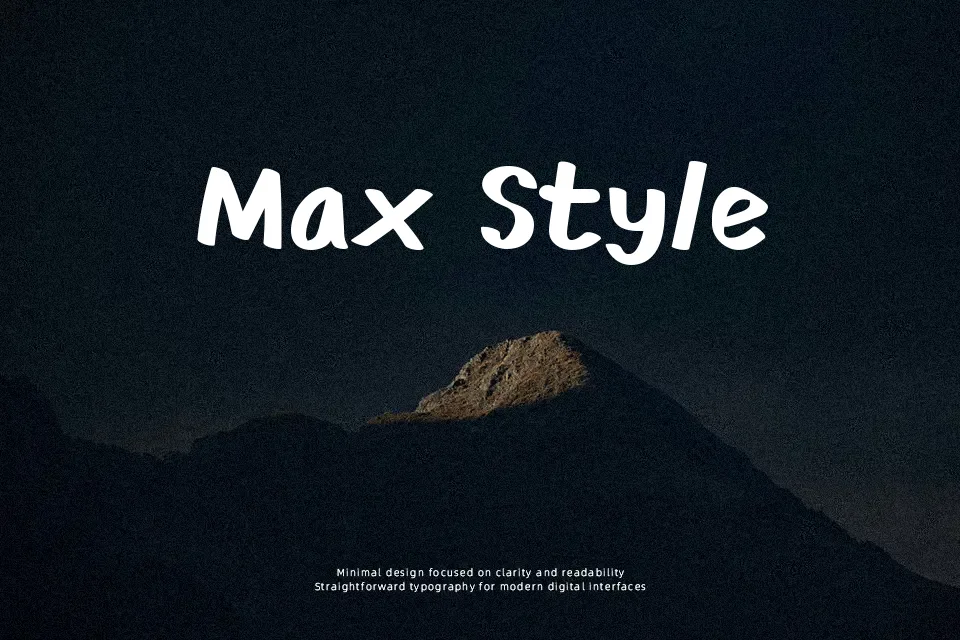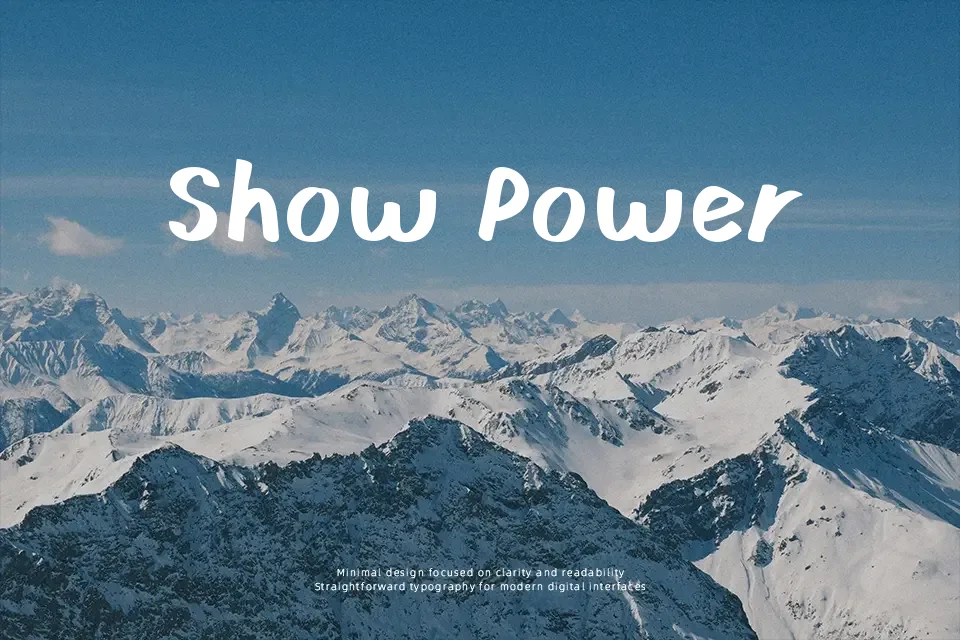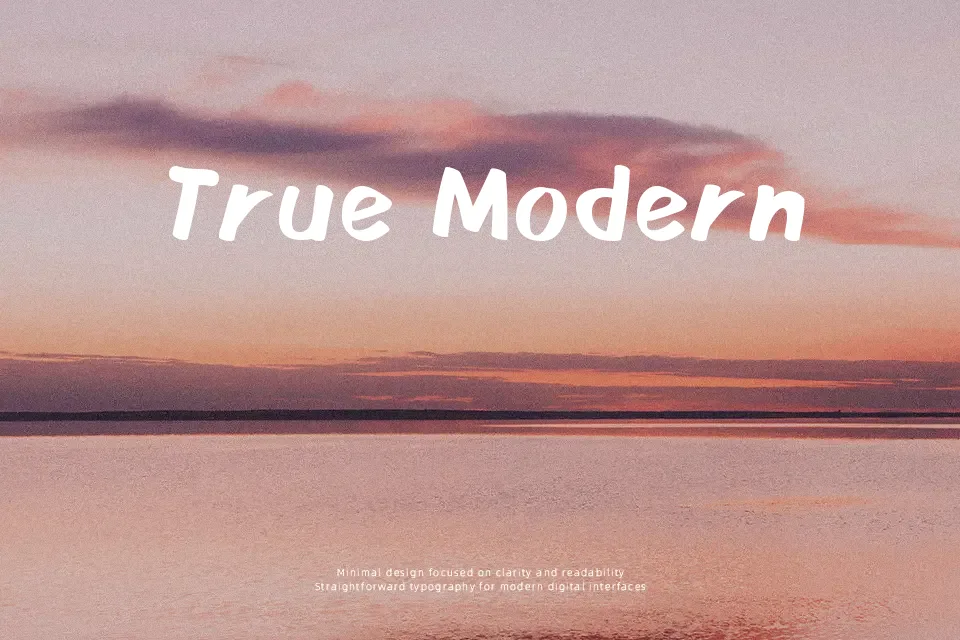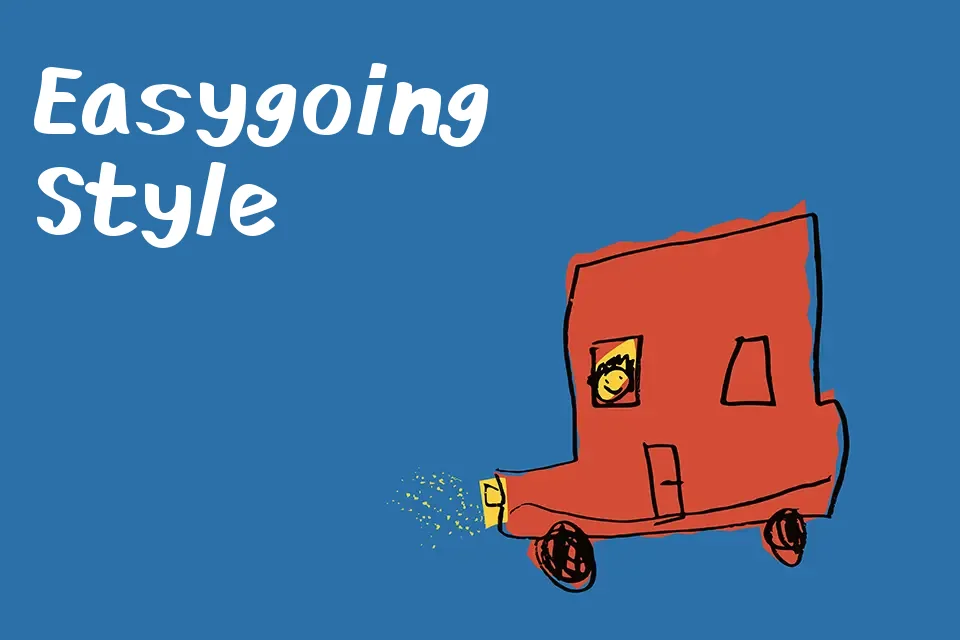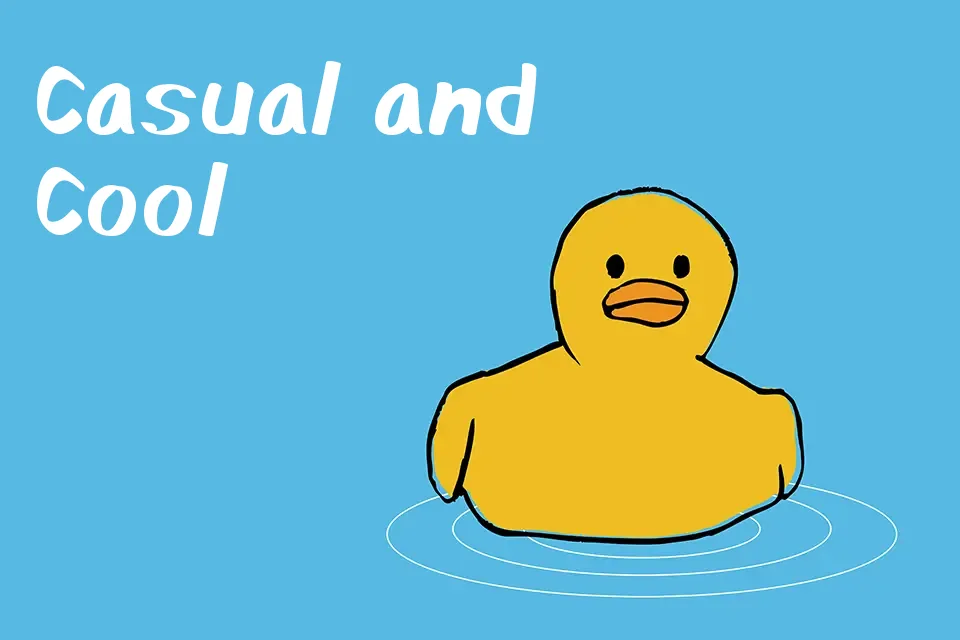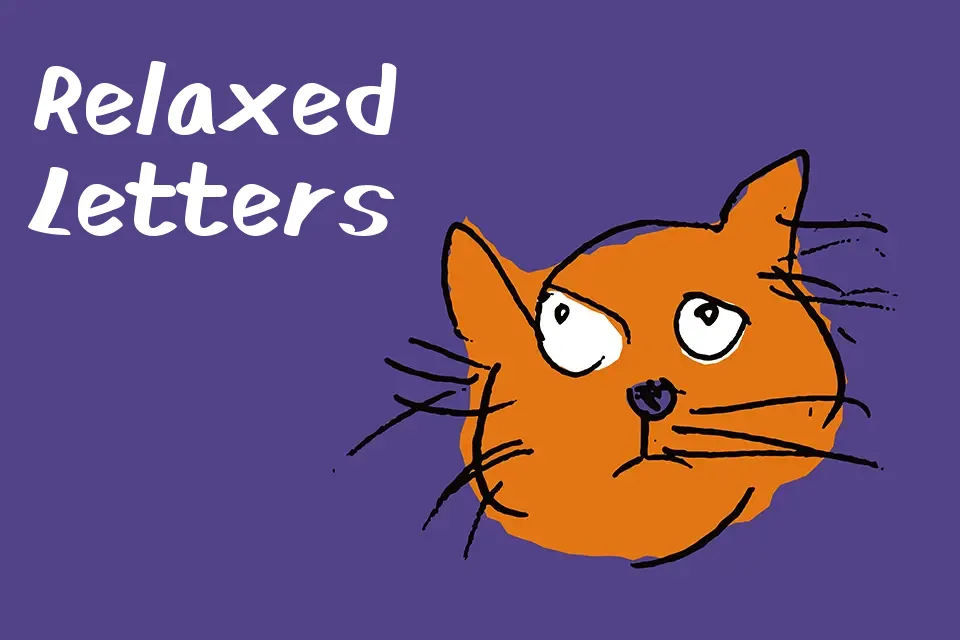
Ardies Font
Designed by Ardi Santoso
Ardies carries the feel of a quick, confident hand — strokes that vary just enough to read as human without looking sloppy. The letterforms are rounded and bold, with a looseness that sits somewhere between brush lettering and comic typography. It fits naturally in contexts where warmth and informality are assets: a food truck menu header, a children’s event flyer, or a quirky social media post. The uneven stroke weight is part of its character, not a flaw — but that same irregularity makes it struggle when precision or authority is expected. Not the right call for professional credentials, legal documents, or anything requiring tight typographic control. Think of it as the font you’d reach for when the vibe matters more than the hierarchy.
Best For:- Comic-style logo lettering or character branding
– Casual poster headlines and event flyers
– Social media graphics with a fun or youthful tone
– Children’s content headers or kids’ product packaging
Not Ideal For:- Long-form body text or editorial paragraphs
– Corporate branding or formal business materials
– Small-size UI labels or footnote text
– Layouts requiring consistent optical stroke weight
Perfect for branding, kids, and logo, with a creative and comic style.